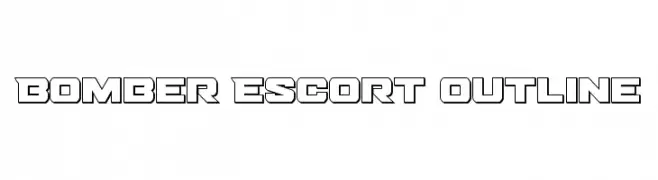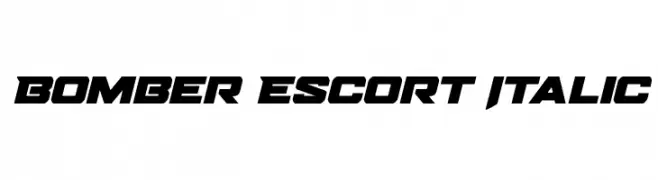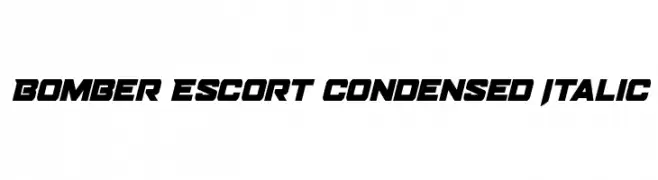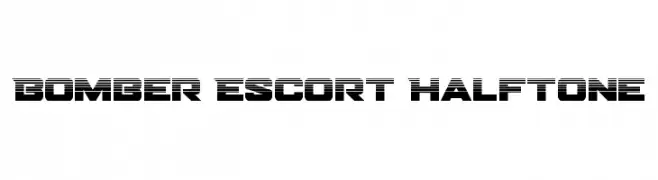
A bold, outlined font with a futuristic and angular design.
A bold, angular font with a futuristic, military-inspired design.
A bold, angular font with a dynamic, military-inspired design.
A bold, italicized font with a futuristic and dynamic style.
A bold, condensed, and italicized font with angular, geometric shapes.
A bold, futuristic font with a striped, gradient-like design.
A bold, italic, and expanded font with a modern, dynamic style.
A bold, geometric font with sharp angles and a strong, modern presence.
A bold, futuristic font with a dynamic halftone effect and sharp angles.
A bold, angular, semi-italic font with a futuristic and dynamic style.